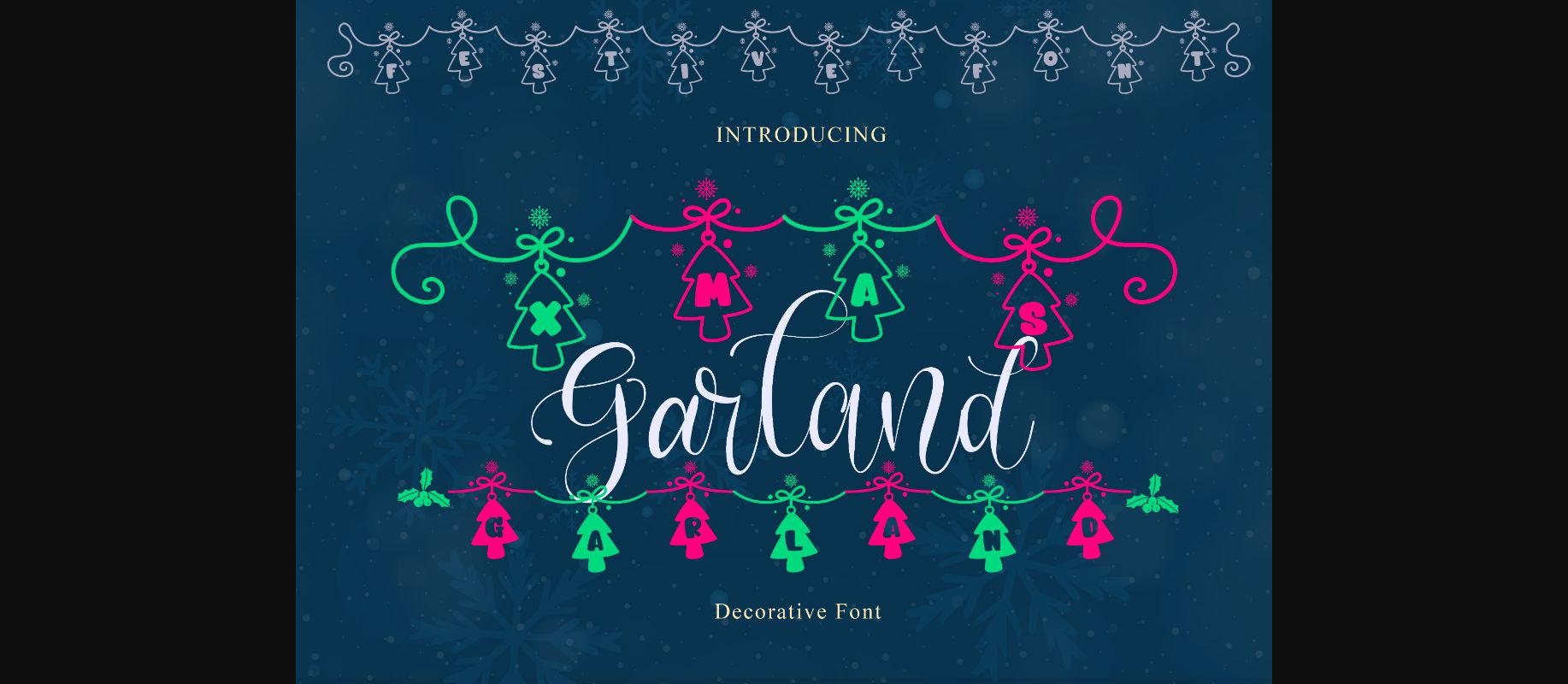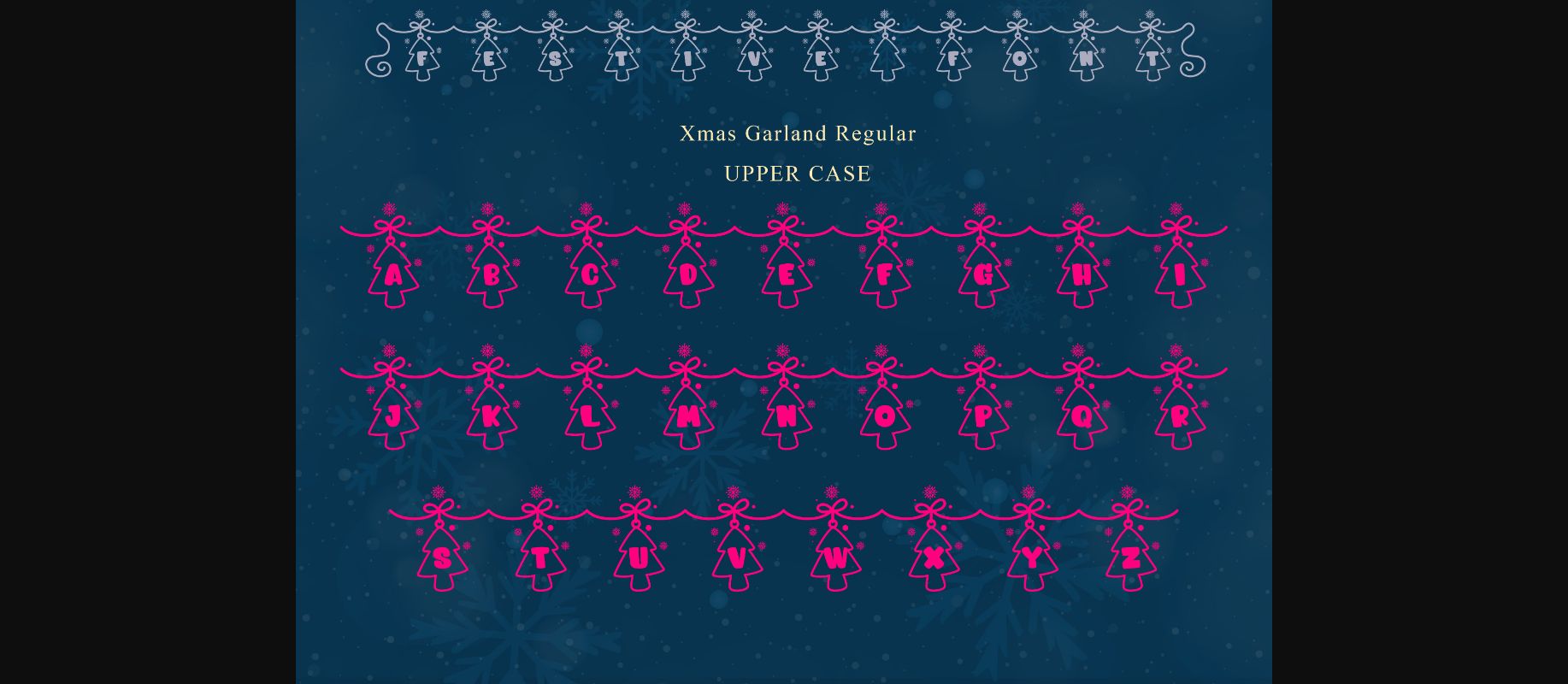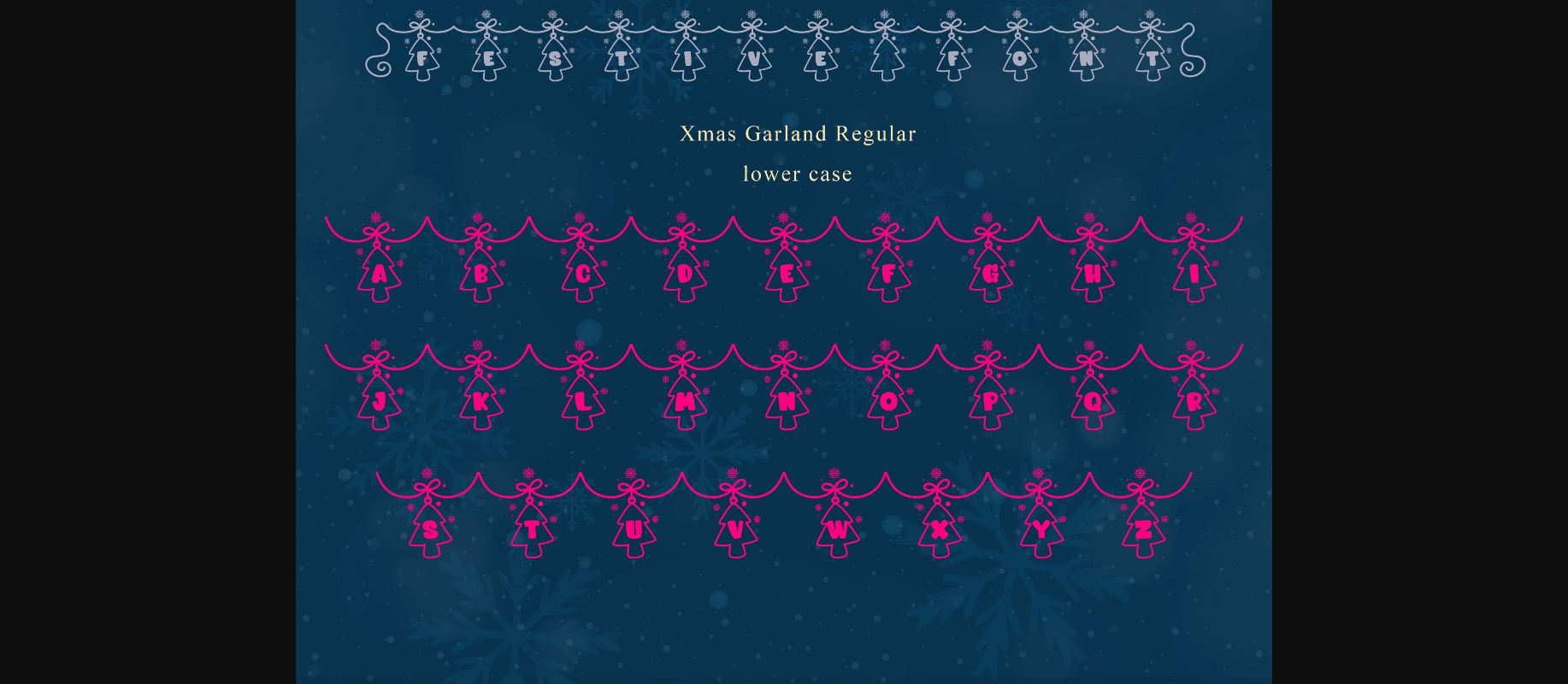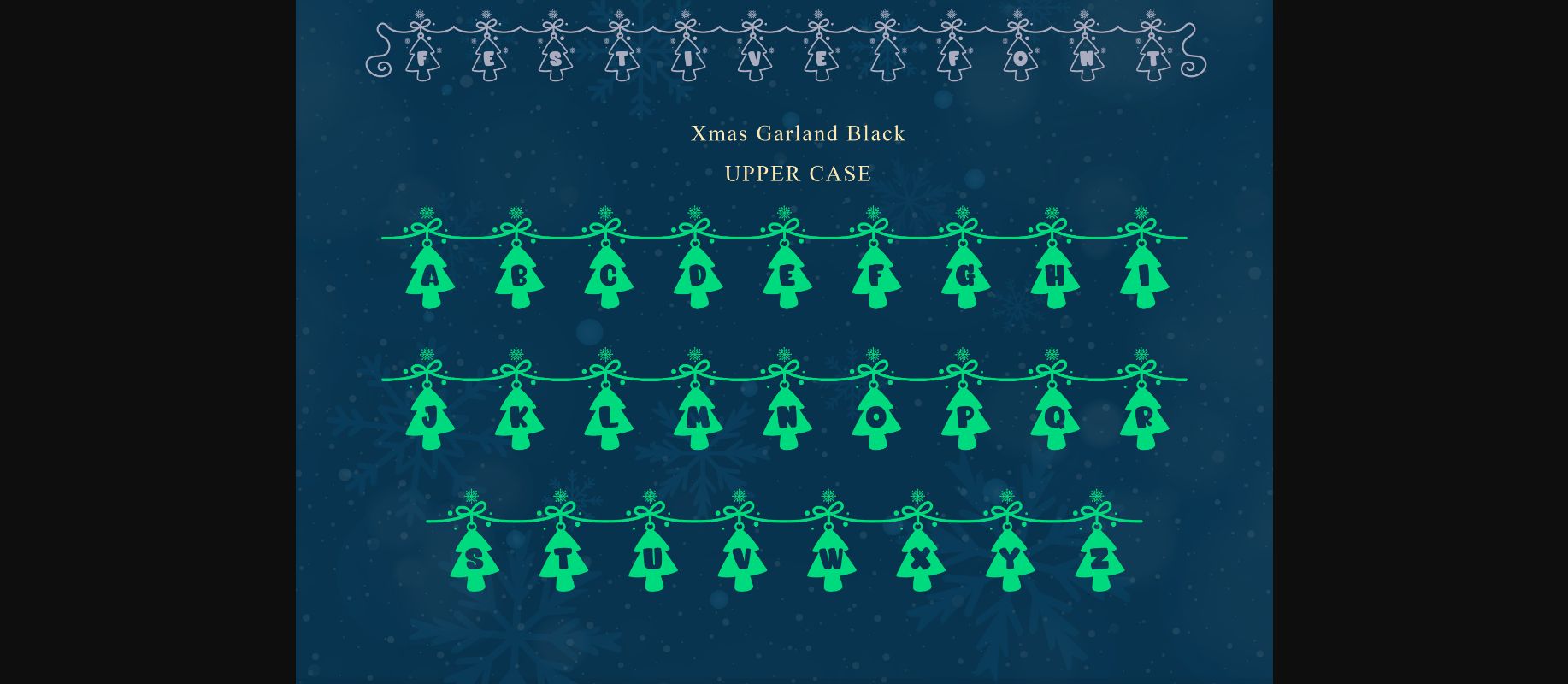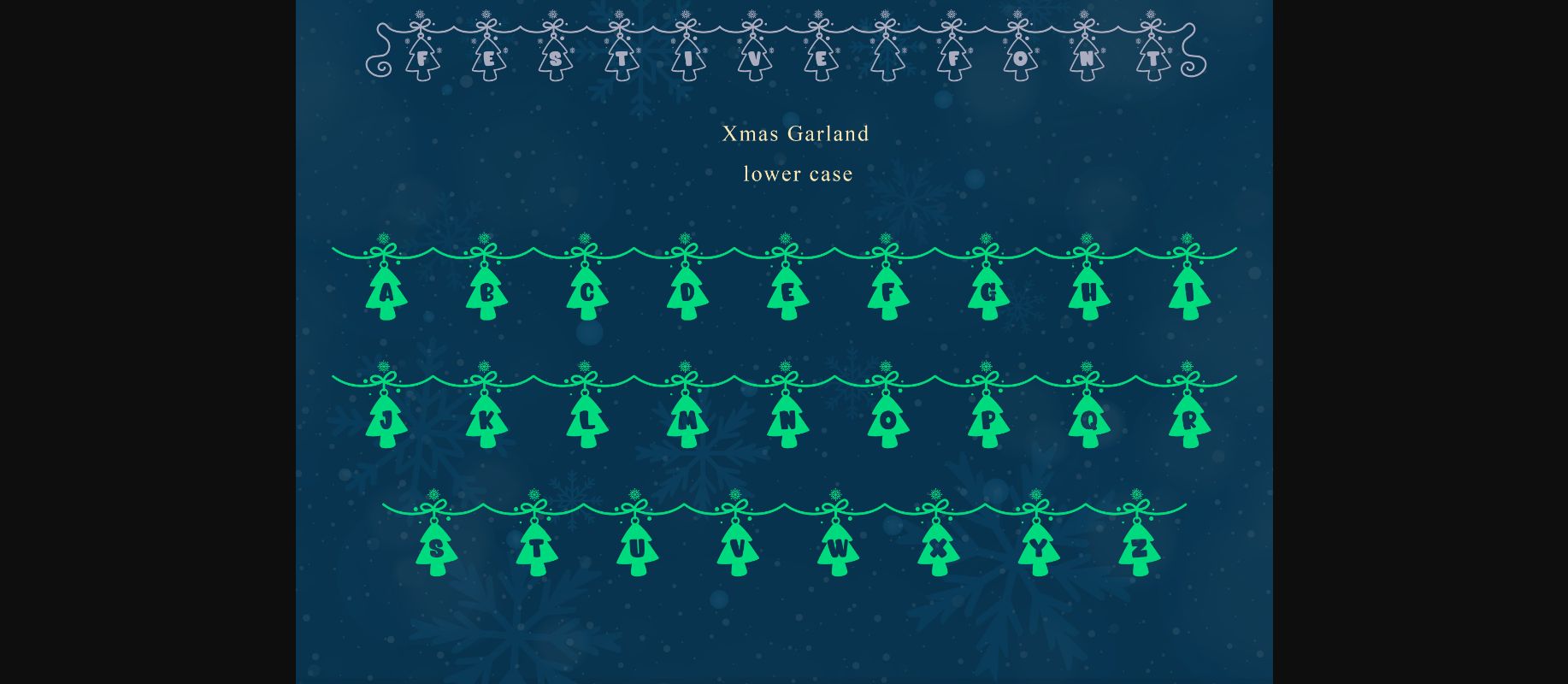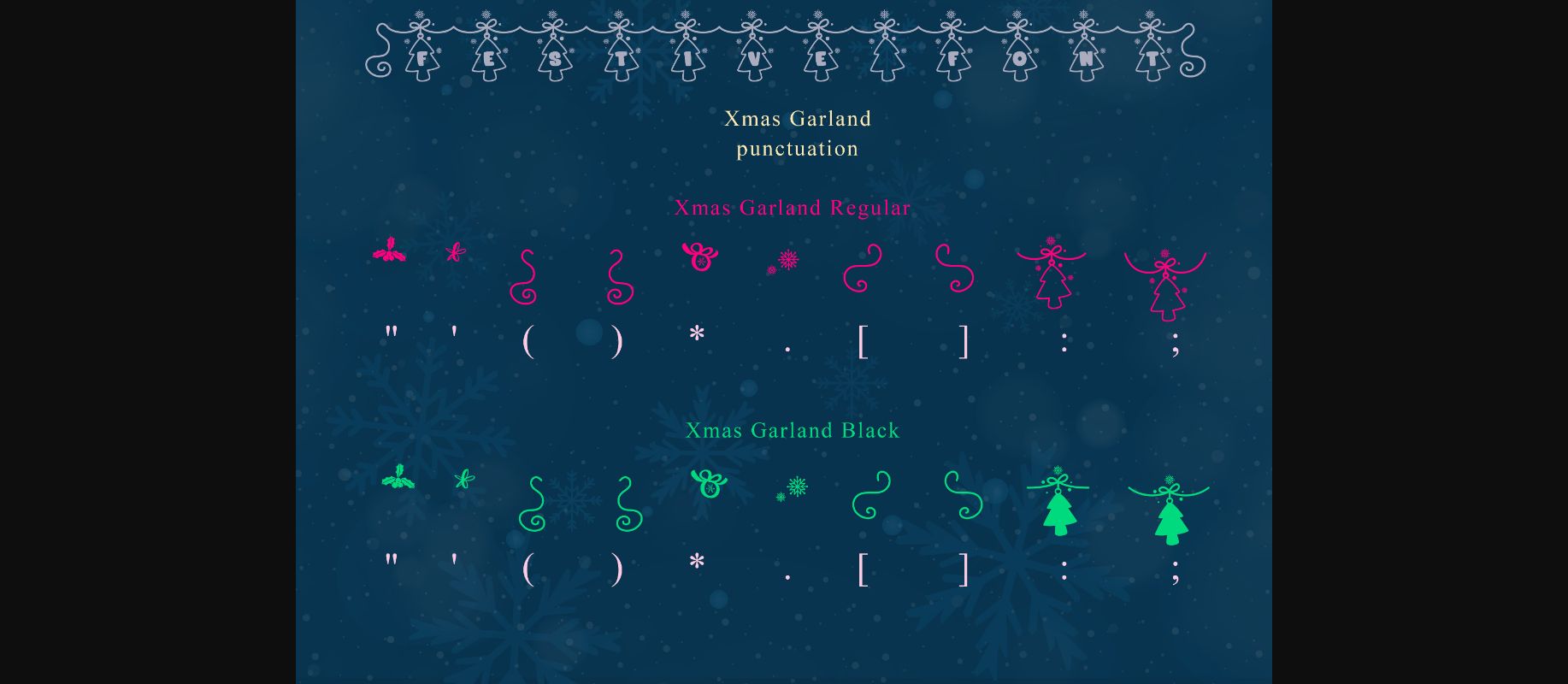
Xmas Garland Font
About Xmas Garland Font
Xmas Garland is a fun and festive decorative font perfect for all your Christmas projects. From greeting cards to headlines, this font will guarantee a playful touch to each of your creations!